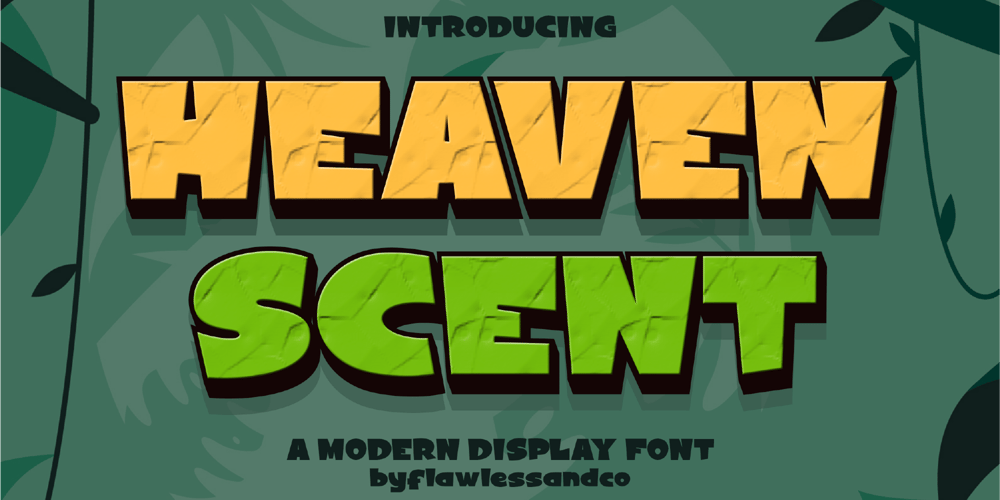
Heaven Scent
Heaven Scent font
Heaven Scent Font Family was designed by Achmad Yani and published by Flawlessandco. Heaven Scent contains 2 styles and family package options. Introducing “Heaven Scent” – A Modern Display Font. Dive into the captivating world of “Heaven Scent,” a modern display font that adds a delightful twist to your design projects. There’s some connected letters and some alternates that suitable for any graphic designs.This font support for some multilingual. Also contains uppercase A-Z and lowercase a-z, alternate character, numbers 0-9, and some punctuation.If you need help, just write me! Thanks so much for checking out my shop!